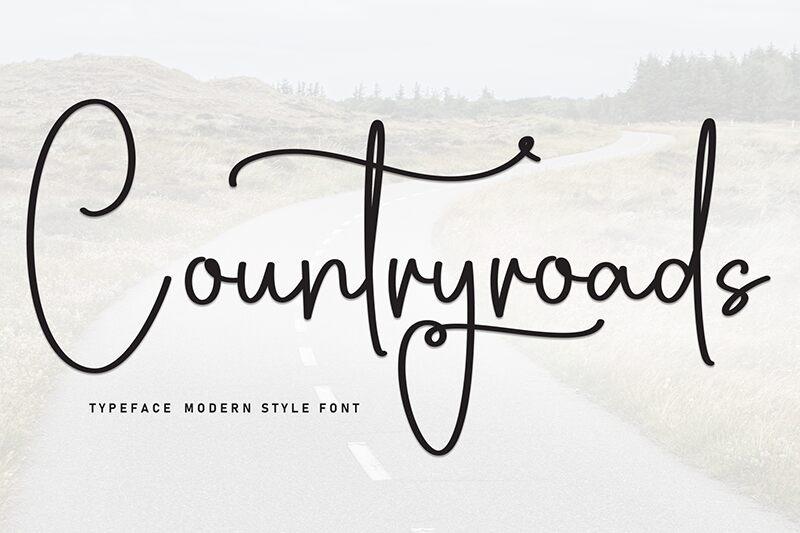
Countryroads
Countryroads font designed by Scratchones is a light handwritten font that walks the reader through various letterforms and heights, each character unlike the other. Enjoy the irregular script style of this resource which embodies a casual elegance with fluid movements that hold an organic flow. Even its freeform serif strokes reflect a natural design that balances out your texts.
The imperfect charm of Countryroads can be experienced on book covers for novels and personal illustrated stories, postcards designs with messages dedicated to loved ones, or posters for unforgettable events. Its uniqueness is also paraded on badges and pins, bookmarks, apparel items such as t-shirts, caps, or tote bags, as well as social media posts and website designs.